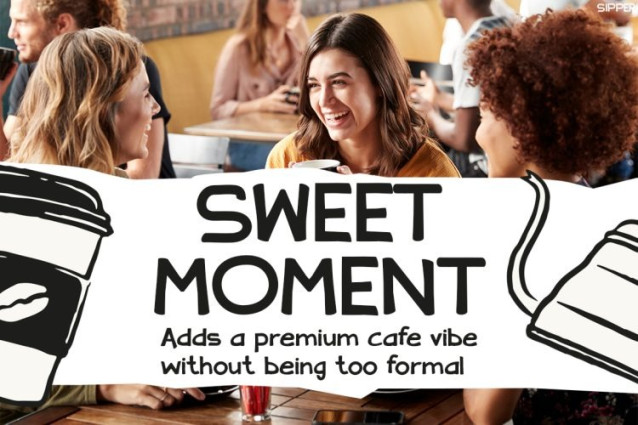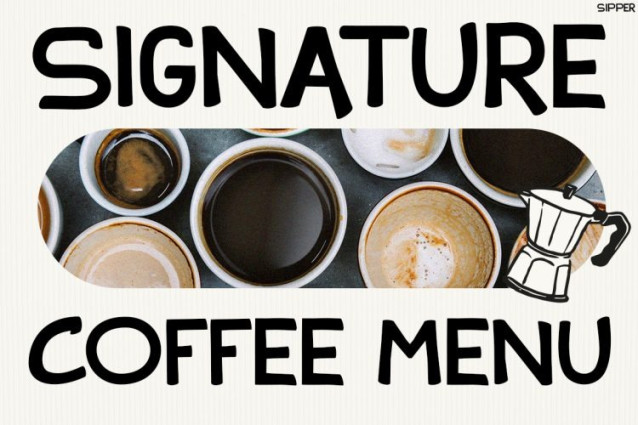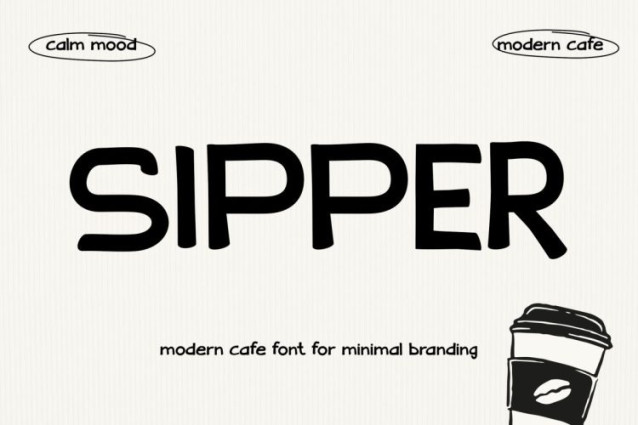
Sipper Font
Sipper Font is a fun and modern typeface designed to bring a fresh and friendly feel into your designs. At first glance, its bold rounded shapes and slightly quirky letterforms create a warm and approachable look. Moreover, the clean lines combined with playful curves give it a unique balance between modern minimalism and casual charm. Because of this, the font feels both stylish and relaxed. In addition, its clear structure ensures great readability, making it perfect for everyday use. As a result, SIPPER delivers designs that feel cozy, inviting, and effortlessly eye-catching.
Kids Font SIPPER is a playful display font crafted to enhance modern lifestyle and cafe-inspired visuals. Not only does it feature bold and friendly letterforms, but it also pairs beautifully with clean layouts, food photography, and minimal branding. Furthermore, its casual yet structured style makes it versatile for both fun and professional projects. Therefore, whether you are designing menus, posters, or social media content, SIPPER adds a fresh and modern touch. Ultimately, it transforms simple text into warm and engaging visuals.